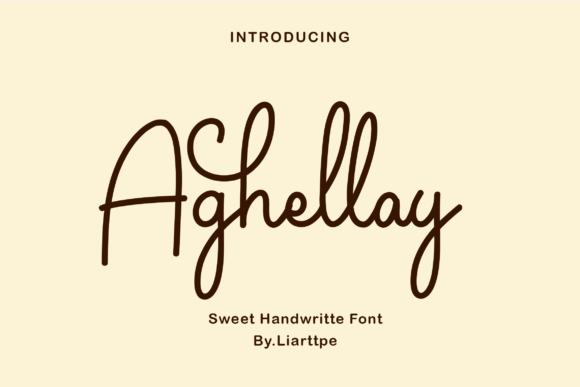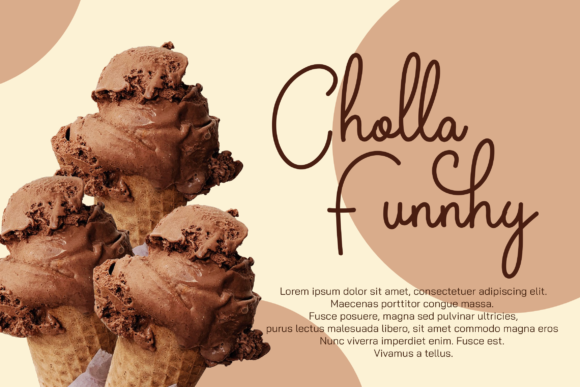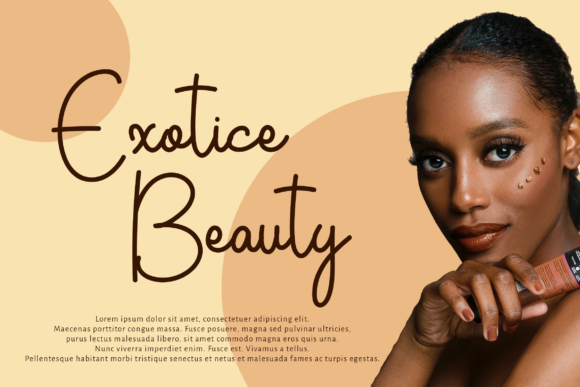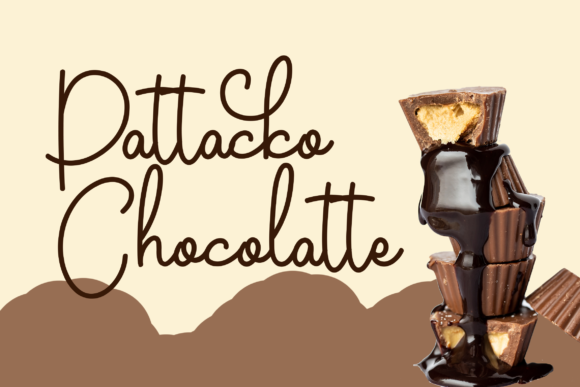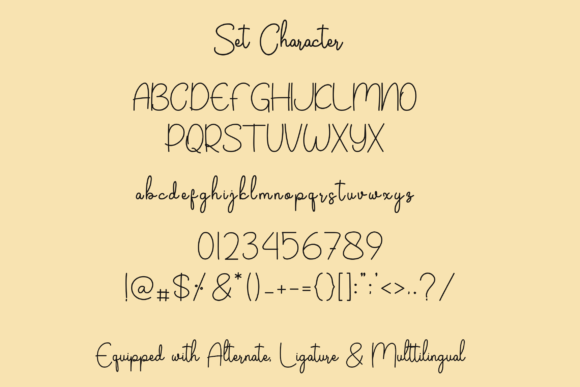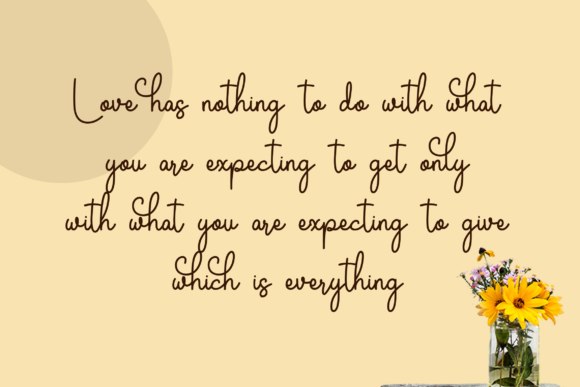
Aghellay Font
About Aghellay Font
Aghellay is a delicate, skinny and vintage styled script font. Featuring characters that dance along the baseline, this font will add a luxury spark to any design project that you wish to create!